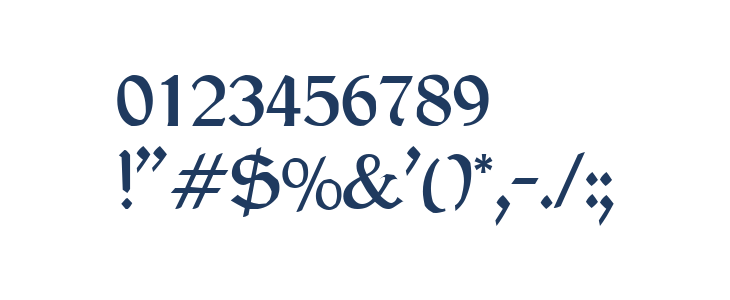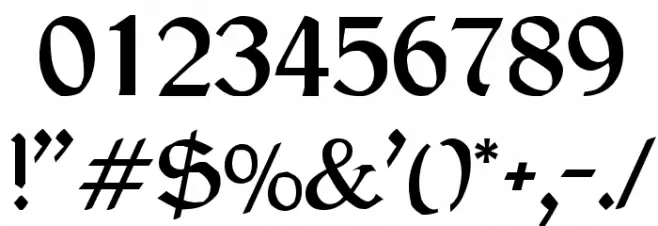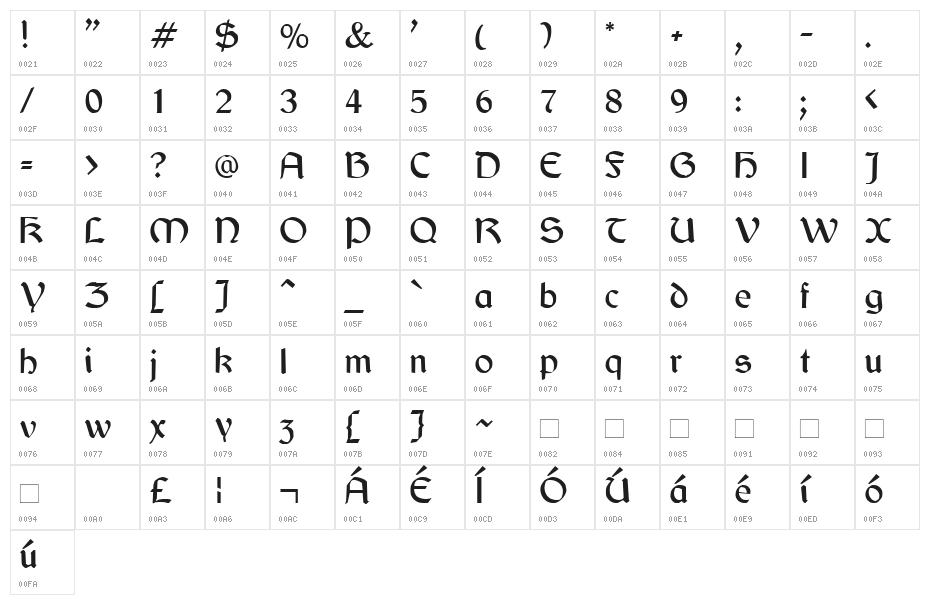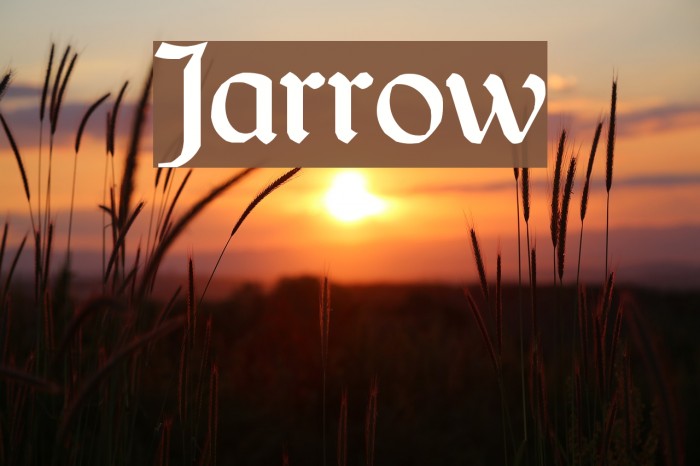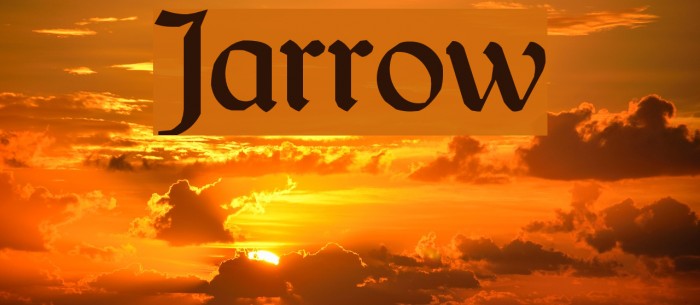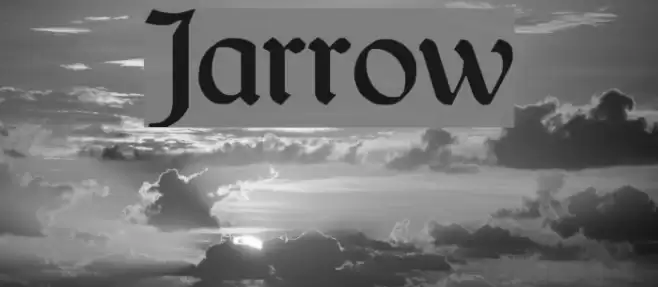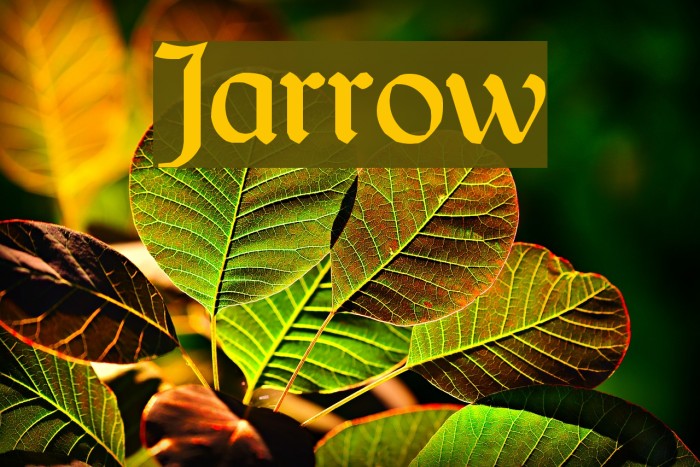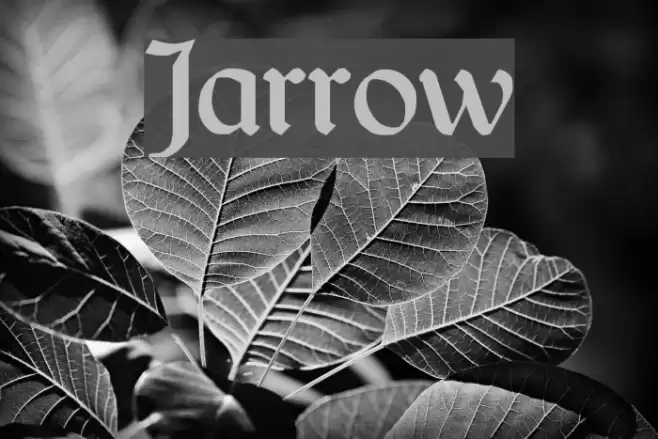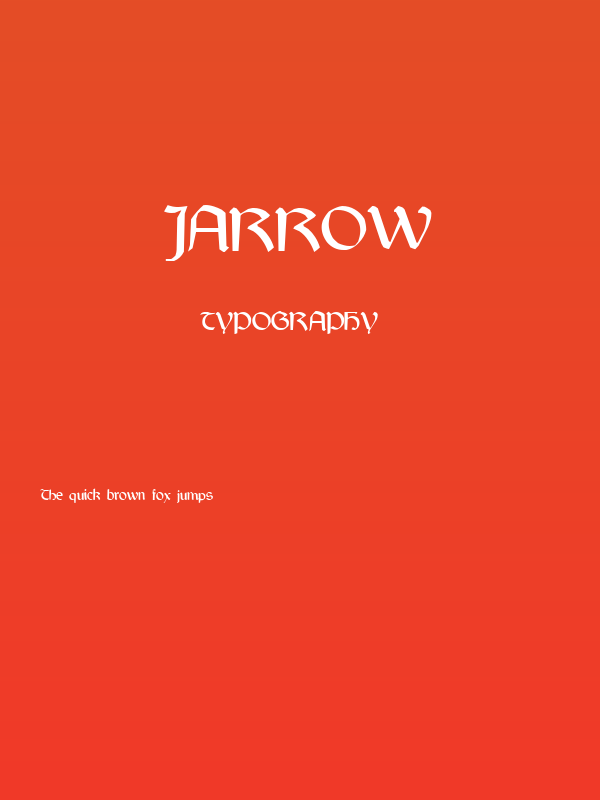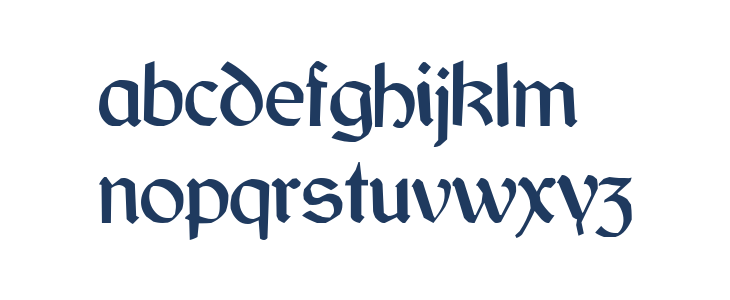
Jarrow Font
Jarrow Description
This font features a bold and striking design with a strong presence. The characters are crafted with sharp, angular edges and a distinct medieval flair, reminiscent of Gothic or Blackletter styles. The uppercase letters exhibit a commanding presence, while the lowercase letters maintain a consistent style with slightly more curvature. The numerals are clear and robust, matching the overall aesthetic. Special characters are designed with the same attention to detail, ensuring a cohesive look across all glyphs. This font is ideal for projects that require a historical or dramatic touch.